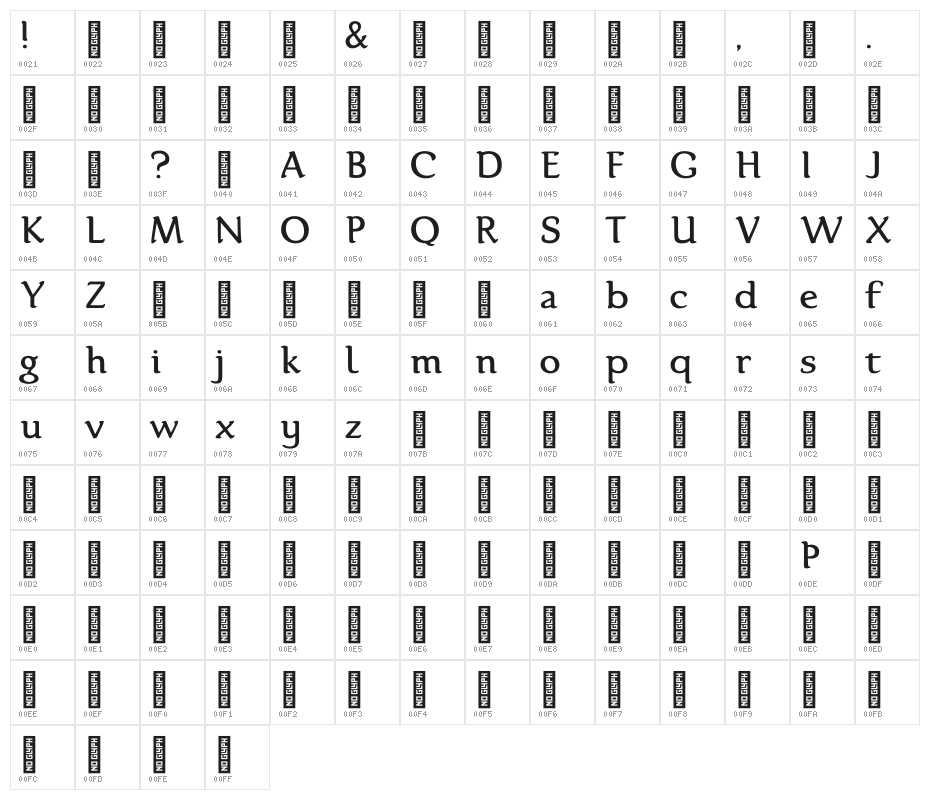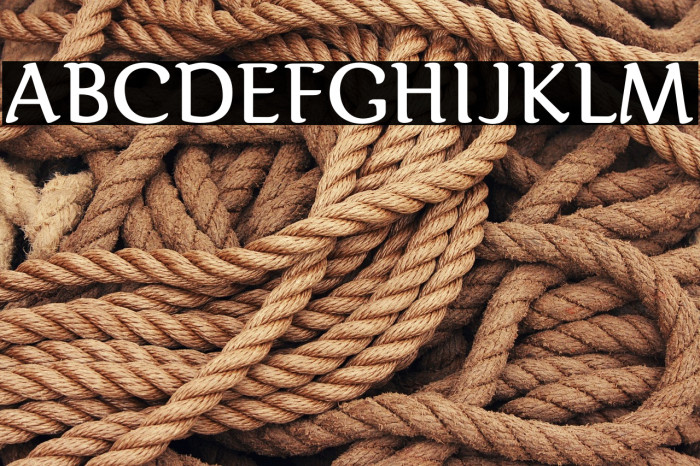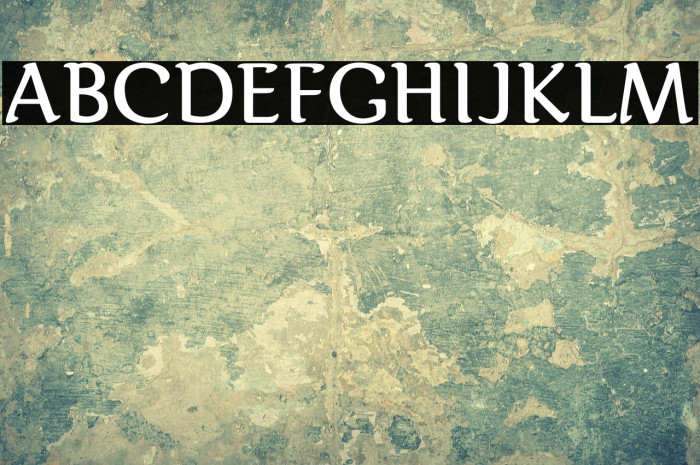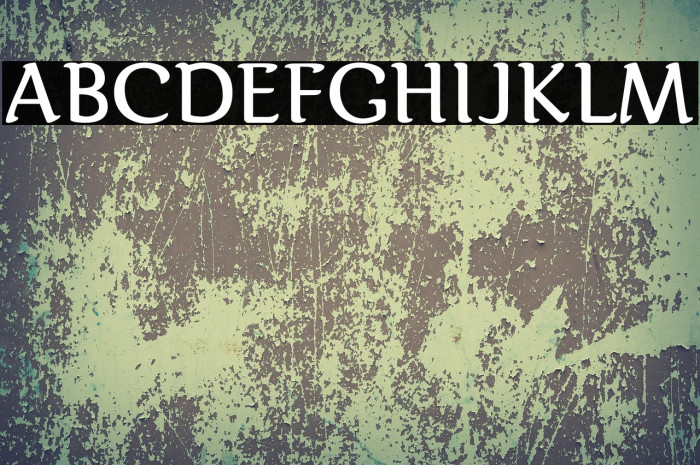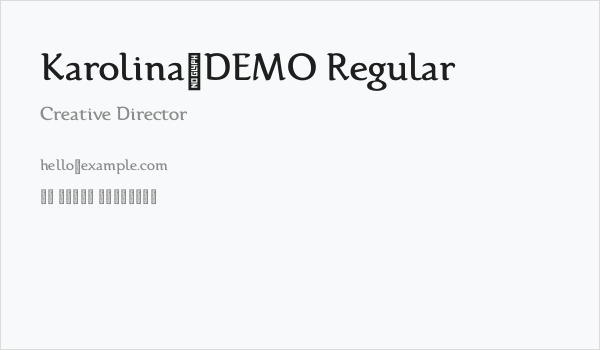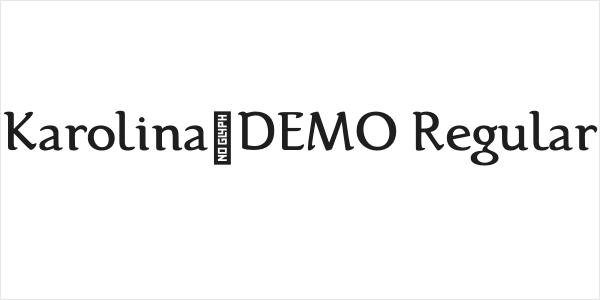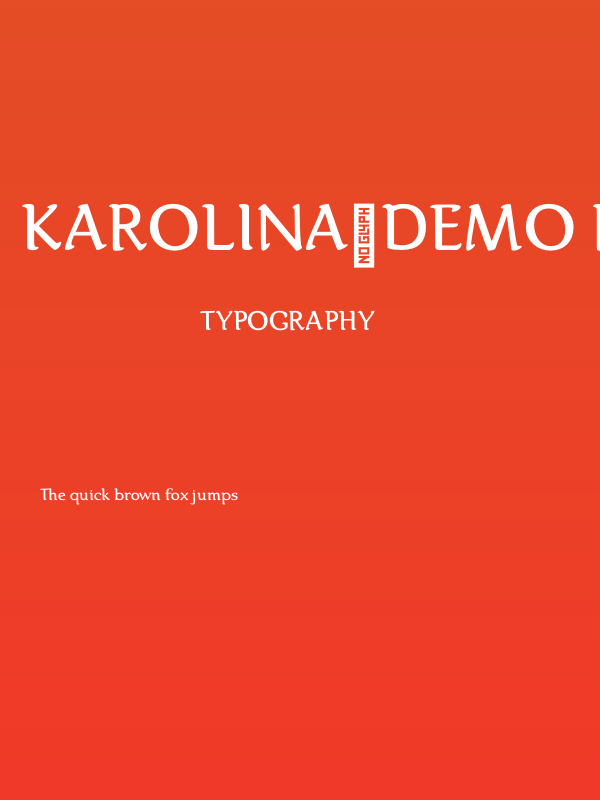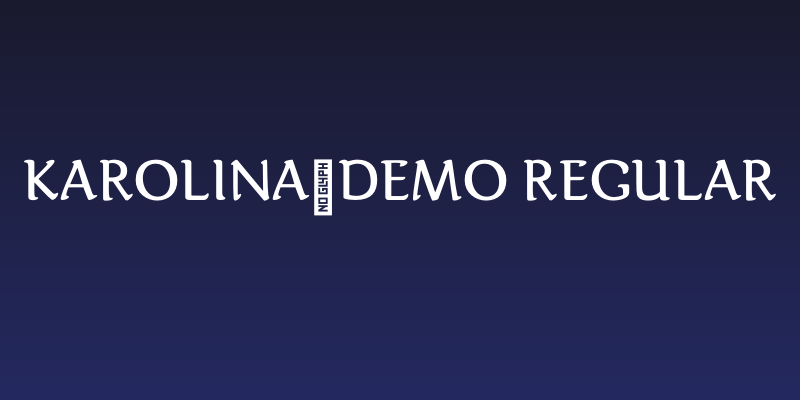
Karolina-DEMO Regular Font
Karolina-DEMO Regular Description
This font features a classic serif style with a modern twist, characterized by its elegant and slightly curved serifs. The uppercase letters are bold and commanding, while the lowercase letters maintain a consistent flow with rounded edges and a balanced weight. The font exhibits a harmonious blend of traditional serif elements with a contemporary design, making it versatile for various applications. The absence of special characters suggests a focus on simplicity and readability, ideal for both digital and print media.
| Proposed Projects | Ideal for editorial design, book covers, branding, and sophisticated advertising campaigns. |